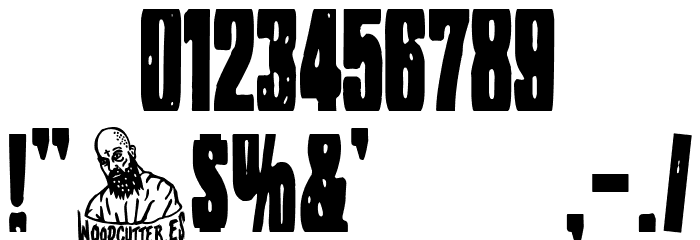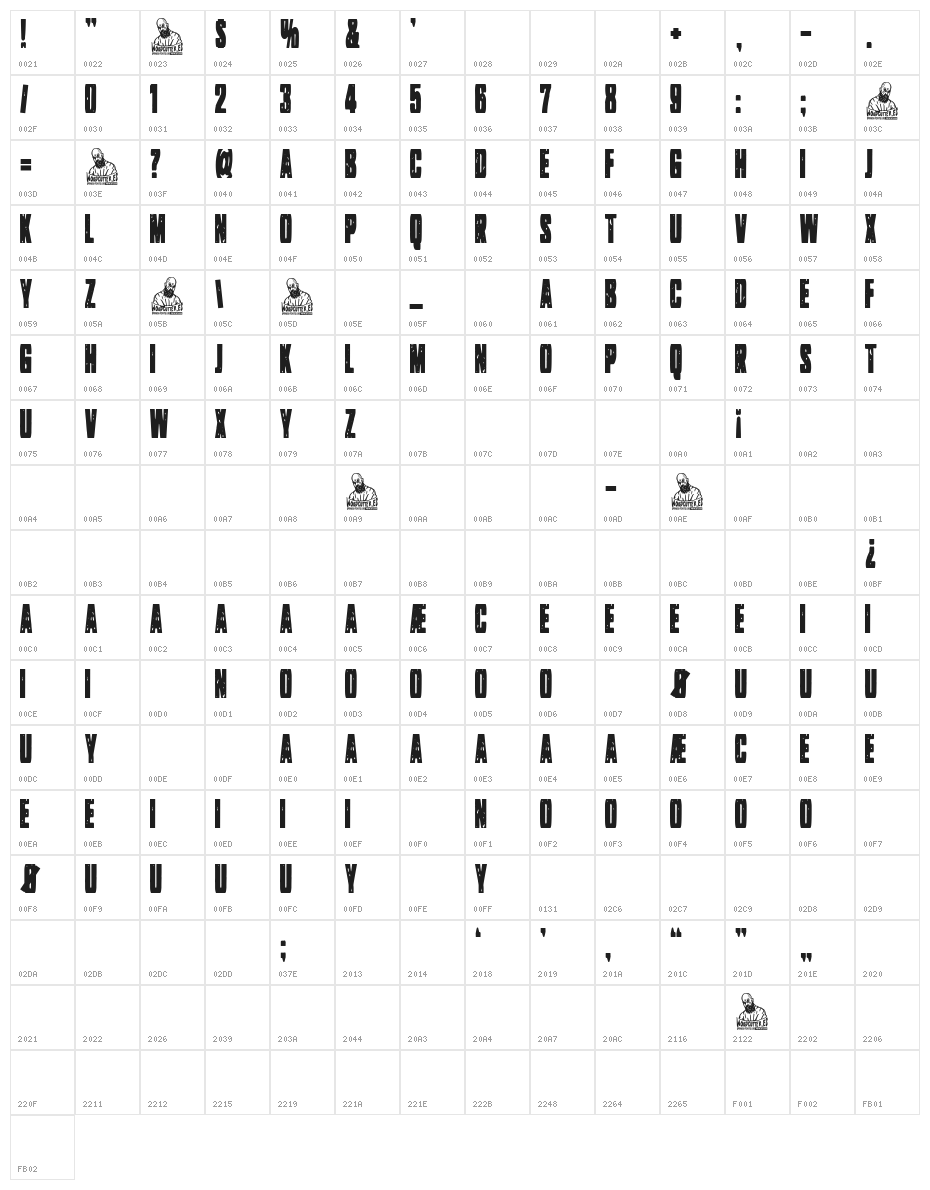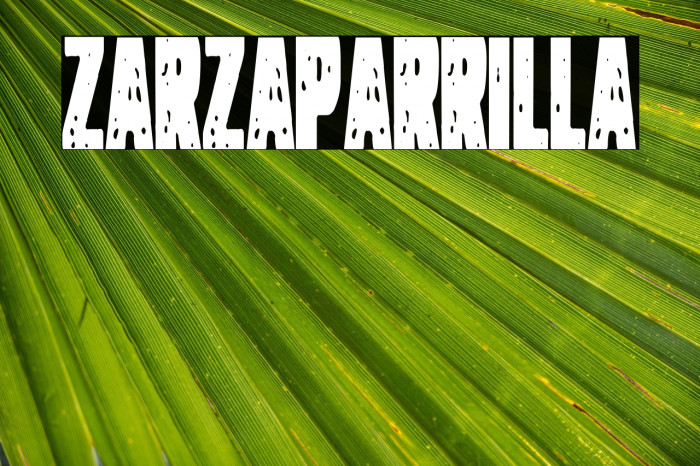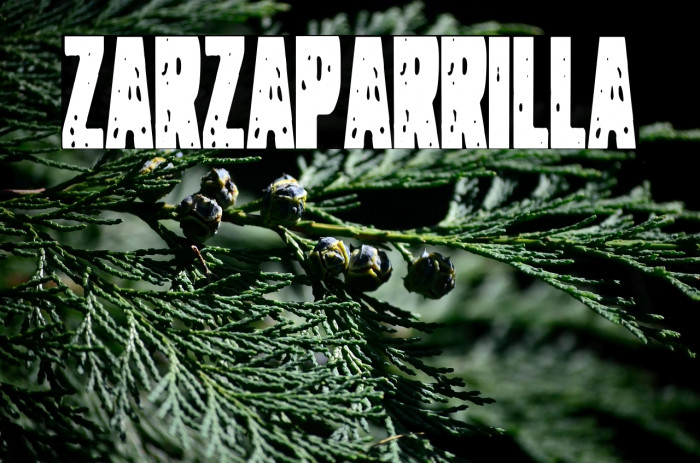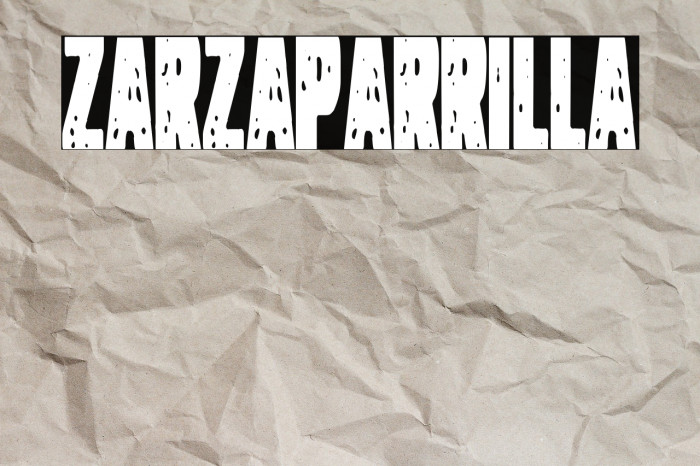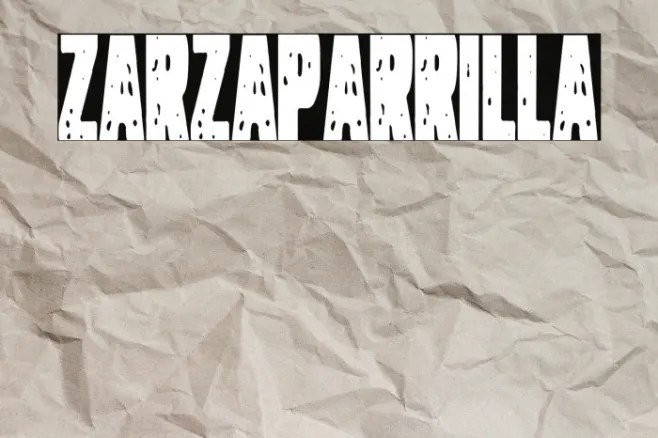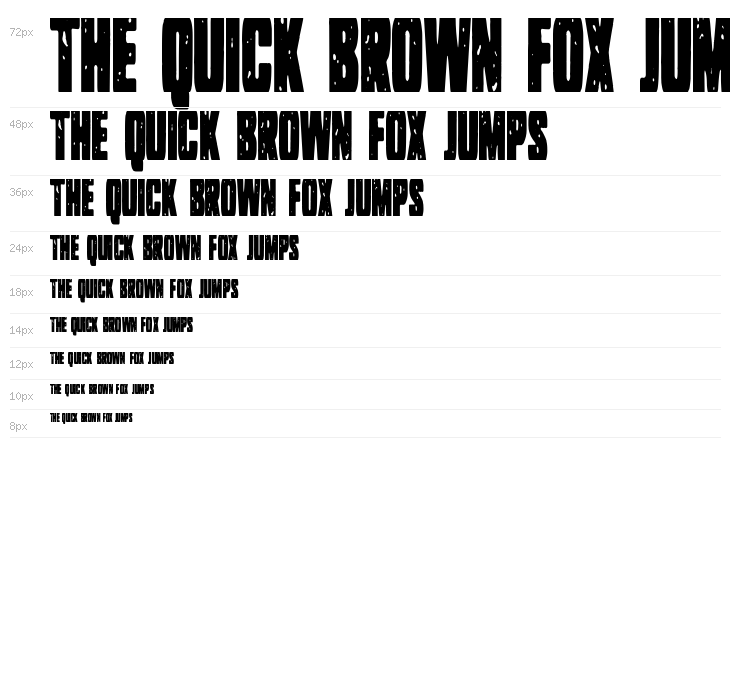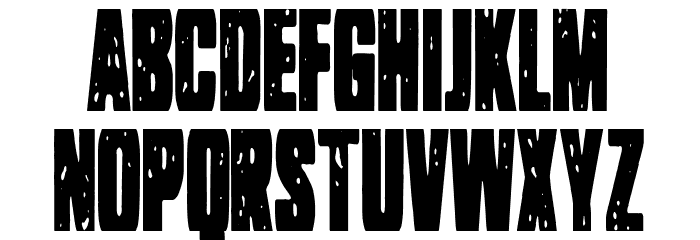
Zarzaparrilla Font
Zarzaparrilla Description
This bold, decorative font features a rugged, distressed texture that gives it a vintage, worn-out appearance. The uppercase letters are blocky and substantial, with irregular edges and a speckled pattern that adds character and depth. The numerals and special characters maintain this distressed style, making the font cohesive and visually striking. Its boldness and unique texture make it ideal for projects that require a strong, eye-catching typeface with a rustic or retro feel.
| Proposed Projects | Perfect for posters, logos, branding, and any design requiring a bold, vintage aesthetic. |